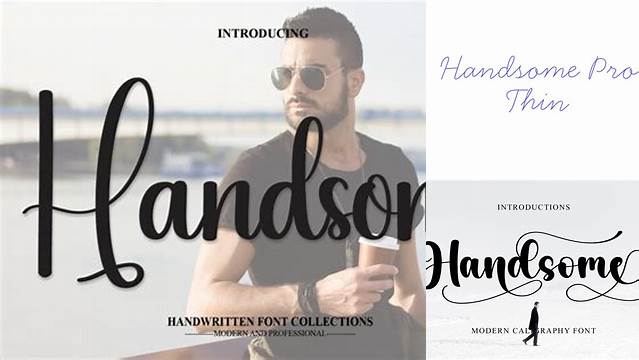
Hey guys! Ever been on the hunt for that perfect, sleek, and handsome thin font to give your designs a touch of elegance? Well, you've landed in the right spot! In this article, we're diving deep into the world of handsome thin fonts, exploring where to find them for free, how to use them, and why they're so darn appealing. Get ready to revamp your typography game!
1. The Allure of Handsome Thin Fonts
Handsome thin fonts, with their delicate lines and minimalist appeal, have a unique charm that can elevate any design project. Their slender strokes evoke a sense of sophistication and modernity, making them perfect for a wide range of applications. Whether you're working on a sleek website, an elegant invitation, or a minimalist logo, a well-chosen handsome thin font can add that perfect touch of refinement. The beauty of these fonts lies in their simplicity; they manage to be both eye-catching and understated, drawing attention without overwhelming the viewer. They’re like that effortlessly stylish friend who always looks put-together without seeming like they tried too hard! Using handsome thin fonts can truly set your work apart by lending it an air of high-end quality and visual appeal that thicker fonts sometimes struggle to achieve. So, why settle for ordinary when you can embrace the elegance of handsome thin fonts?
6. Using Thin Fonts in Graphic Design
When it comes to graphic design, handsome thin fonts can be a game-changer. Their delicate nature makes them perfect for adding a touch of sophistication and elegance to your projects. They work particularly well in logos, where a minimalist approach can convey a sense of modernity and refinement. In branding materials, handsome thin fonts can create a cohesive and upscale look. They’re also fantastic for headlines and titles, especially when paired with a bolder, more substantial font for body text. This contrast can create visual interest and hierarchy, guiding the reader's eye through the design. However, be cautious when using handsome thin fonts in smaller sizes or for large blocks of text, as their thin strokes can become difficult to read. Always consider the readability and accessibility of your design. Experiment with different weights and sizes to find the perfect balance. When used correctly, handsome thin fonts can transform your designs from ordinary to extraordinary.
7. Pairing Thin Fonts with Other Fonts
One of the secrets to using handsome thin fonts effectively is knowing how to pair them with other fonts. The right combination can elevate your design, while the wrong one can make it look disjointed. A classic approach is to pair a handsome thin font with a bolder, more robust font. For example, you could use a thin sans-serif font for headlines and a thicker serif font for body text. This contrast creates visual interest and helps to establish a clear hierarchy. Another popular pairing is combining a handsome thin font with a script or handwritten font. This can add a touch of personality and warmth to your design, perfect for invitations or branding materials. When choosing fonts to pair, consider their overall style and mood. Do they complement each other, or do they clash? Don't be afraid to experiment and try different combinations until you find the perfect match. Online tools like FontPair can also be helpful in suggesting harmonious font pairings. With a little practice, you'll become a pro at creating stunning typographic compositions.
8. Ensuring Readability with Thin Fonts
While handsome thin fonts are undeniably stylish, readability should always be a top priority. Their delicate strokes can sometimes be difficult to read, especially in smaller sizes or against busy backgrounds. To ensure your message is clear, consider increasing the font size slightly. A larger font size will make the thin lines more visible and easier to distinguish. Pay attention to the contrast between the font and the background. A light font on a light background, or a dark font on a dark background, can be challenging to read. Opt for high contrast combinations, such as a dark font on a white background, or vice versa. Adjust the letter spacing and line height to improve legibility. Slightly increasing the letter spacing can prevent the characters from crowding together, while increasing the line height can add more space between lines of text. Always test your design on different devices and screen sizes to ensure it remains readable. By taking these steps, you can harness the beauty of handsome thin fonts without sacrificing clarity.
9. Using Thin Fonts for Logos
Handsome thin fonts are a fantastic choice for creating sleek and modern logos. Their minimalist aesthetic can convey a sense of sophistication and elegance, perfect for brands that want to project a refined image. When using handsome thin fonts in logo design, simplicity is key. Avoid adding too many decorative elements or intricate details, as this can clutter the design and detract from the font's inherent elegance. Consider the overall message and target audience of the brand. A handsome thin font might be ideal for a high-end fashion brand or a minimalist tech startup, but it might not be the best fit for a playful children's brand. Pay attention to the kerning and letter spacing to ensure the logo looks balanced and visually appealing. Experiment with different weights and variations of the font to find the perfect balance. And don't be afraid to get creative! You can use handsome thin fonts in combination with other design elements, such as icons or graphics, to create a unique and memorable logo.
10. Thin Fonts for Web Design
In the world of web design, handsome thin fonts can add a touch of elegance and modernity to your site. They're particularly well-suited for headlines, navigation menus, and other prominent elements. When using handsome thin fonts on the web, it's crucial to consider readability across different devices and screen sizes. Test your font choices on various browsers and operating systems to ensure they render correctly. Use CSS to adjust the font size, letter spacing, and line height to optimize readability. Consider using web fonts, which are specifically designed for online use. Services like Google Fonts and Adobe Fonts offer a wide selection of handsome thin fonts that are optimized for web performance. Be mindful of the website's loading speed. Using too many web fonts or fonts that are not properly optimized can slow down your site, which can negatively impact user experience. Choose your fonts carefully and optimize them for performance to create a website that looks great and loads quickly.
11. The Psychology Behind Thin Fonts
Did you know that fonts can evoke specific emotions and perceptions? Handsome thin fonts often convey a sense of sophistication, elegance, and modernity. They can make a design feel more upscale and refined. This makes them a popular choice for brands that want to project a high-end image. Handsome thin fonts can also create a feeling of lightness and airiness. Their delicate strokes can make a design feel less heavy and more approachable. However, they can also be perceived as fragile or delicate, so it's important to use them in the right context. When choosing a font for your project, consider the message you want to convey and the emotions you want to evoke. A handsome thin font can be a powerful tool for shaping perceptions and creating a lasting impression.
12. Common Mistakes to Avoid with Thin Fonts
Using handsome thin fonts can be tricky, and it's easy to make mistakes that can detract from your design. One common mistake is using them in too small a size. Thin fonts can become difficult to read at smaller sizes, especially on screens. Always test your font choices at different sizes to ensure they remain legible. Another mistake is using them on busy or cluttered backgrounds. The thin lines can get lost in the noise, making the text difficult to read. Opt for clean, simple backgrounds that provide good contrast. Overusing handsome thin fonts is another pitfall. Using them for every element of your design can make it feel monotonous and overwhelming. Use them sparingly, and pair them with other fonts to create visual interest. Avoid using them for long blocks of text. Thin fonts are best suited for headlines, titles, and short phrases. By avoiding these common mistakes, you can use handsome thin fonts effectively and create stunning designs.
13. Exploring Different Styles of Thin Fonts
Handsome thin fonts come in a variety of styles, each with its unique character and appeal. Some are sleek and modern, with sharp angles and clean lines. Others are more traditional, with subtle serifs and elegant curves. Sans-serif handsome thin fonts tend to have a minimalist and contemporary feel, while serif handsome thin fonts can evoke a sense of classic elegance. Some handsome thin fonts have a handwritten or script-like appearance, adding a touch of personality and warmth to your designs. Experiment with different styles to find the perfect fit for your project. Consider the overall tone and message you want to convey. A modern, sans-serif handsome thin font might be ideal for a tech startup, while a traditional, serif handsome thin font could be a great choice for a luxury brand. The possibilities are endless!
14. The Future of Thin Fonts in Design
As design trends continue to evolve, handsome thin fonts are likely to remain a popular choice for their sleek and modern aesthetic. With the rise of minimalist design and the increasing focus on user experience, handsome thin fonts are well-positioned to play a prominent role in shaping the future of design. We can expect to see designers pushing the boundaries of typography, experimenting with new and innovative ways to use handsome thin fonts. Variable fonts, which allow for greater flexibility and customization, are likely to become more prevalent. This will enable designers to fine-tune the weight, width, and other characteristics of handsome thin fonts to create unique and tailored designs. As technology advances, we can also expect to see new tools and techniques that make it easier to use handsome thin fonts effectively across different platforms and devices.
15. Maintaining Consistency with Thin Fonts
Consistency is key when using handsome thin fonts in your designs. Inconsistent use of fonts can make your designs look unprofessional and disjointed. Choose a limited number of fonts (ideally two or three) and stick to them throughout your project. Establish clear guidelines for how each font should be used. For example, you might use a handsome thin font for headlines and a bolder font for body text. Be consistent with font sizes, letter spacing, and line height. Use styles and templates to ensure consistency across different pages or documents. Create a style guide that outlines your font choices and usage guidelines. Share this style guide with your team to ensure everyone is on the same page. By maintaining consistency, you can create designs that look polished, professional, and cohesive.
16. Optimizing Thin Fonts for Mobile Devices
With the increasing popularity of mobile devices, it's crucial to optimize handsome thin fonts for smaller screens. Thin fonts can be difficult to read on mobile devices, especially on high-resolution displays. Increase the font size to make the text more legible. Use a larger font size for headlines and subheadings, and a slightly larger font size for body text. Adjust the letter spacing and line height to improve readability. Add more space between letters and lines to prevent the text from crowding together. Choose fonts that are specifically designed for mobile devices. These fonts are optimized for readability on smaller screens. Test your designs on different mobile devices to ensure the fonts render correctly. Use responsive design techniques to adjust the font sizes and layout based on the screen size. By optimizing handsome thin fonts for mobile devices, you can ensure your designs look great and are easy to read on any device.
17. The Impact of Thin Fonts on Branding
The fonts you choose can have a significant impact on your brand identity. Handsome thin fonts can convey a sense of sophistication, elegance, and modernity, making them a popular choice for brands that want to project a refined image. A well-chosen handsome thin font can help to establish a strong brand identity and differentiate your brand from the competition. Use handsome thin fonts consistently across all your branding materials, including your logo, website, marketing materials, and social media profiles. This will help to create a cohesive and recognizable brand identity. Consider the target audience and overall message of your brand when choosing a font. A handsome thin font might be ideal for a luxury brand targeting affluent customers, but it might not be the best fit for a playful brand targeting children. By carefully considering the impact of handsome thin fonts on your branding, you can create a brand identity that resonates with your target audience.
18. Thin Fonts in Print Design
Handsome thin fonts can be a great choice for print design, but it's important to consider the limitations of print media. Thin fonts can sometimes appear too light or faded when printed, especially on certain types of paper. Choose a font that is specifically designed for print. These fonts are optimized for readability and clarity in printed materials. Increase the font weight slightly to make the text more visible. A slightly heavier weight can help to compensate for the loss of detail in print. Use a high-quality printer and paper. The quality of the printer and paper can have a significant impact on the appearance of your fonts. Test your designs before printing a large quantity. Print a sample page to ensure the fonts look the way you expect them to. By taking these precautions, you can use handsome thin fonts effectively in print design.
19. Combining Thin Fonts with Color
Color can play a crucial role in how handsome thin fonts are perceived. The right color combination can enhance the elegance and sophistication of thin fonts, while the wrong combination can make them look washed out or difficult to read. Use high-contrast color combinations to ensure readability. A dark font on a light background, or vice versa, is generally the most effective. Experiment with different color palettes to find the perfect match for your design. Consider the overall tone and message you want to convey. Warm colors, such as red and orange, can create a feeling of energy and excitement, while cool colors, such as blue and green, can create a feeling of calm and tranquility. Use color to highlight important elements of your design. A pop of color can draw attention to headlines or call-to-action buttons. By combining handsome thin fonts with color effectively, you can create designs that are visually appealing and impactful.
20. Creating Hierarchy with Thin Fonts
Creating a clear visual hierarchy is essential for effective design. Handsome thin fonts can be used to create hierarchy by varying the font size, weight, and style. Use a larger font size for headlines and subheadings to make them stand out. A larger font size will draw the reader's eye and create a clear focal point. Use a bolder weight for important words or phrases. A heavier weight will emphasize key information and make it more memorable. Use different font styles to differentiate between different types of content. For example, you might use a handsome thin font for headlines and a different font for body text. Use whitespace to create visual separation between elements. Whitespace can help to break up the page and make it easier to read. By creating a clear visual hierarchy, you can guide the reader's eye through your design and make it easier to understand.
21. Exploring Open Source Thin Fonts
Open source fonts are a great resource for designers. They are typically free to use for both personal and commercial projects, and they often come with liberal licensing terms that allow you to modify and redistribute them. Many high-quality handsome thin fonts are available under open source licenses. Google Fonts is a great place to find open source fonts. Their library includes a wide variety of handsome thin fonts that are free to use on the web. Font Squirrel is another excellent resource for open source fonts. They curate fonts that are 100% free for commercial use. When using open source fonts, be sure to check the license terms to ensure they meet your needs. Some licenses may require you to attribute the font designer or include a copy of the license with your project. By exploring open source handsome thin fonts, you can find great fonts without breaking the bank.
22. The Importance of Kerning with Thin Fonts
Kerning, the adjustment of space between individual letters, is especially important when working with handsome thin fonts. Because the strokes are so delicate, even slight variations in spacing can become noticeable and affect readability. Poor kerning can make a font look uneven and unprofessional. Pay close attention to the kerning of handsome thin fonts, especially in headlines and logos. Use kerning tools in your design software to fine-tune the spacing between letters. Look for areas where the spacing appears too tight or too loose. Adjust the spacing until the font looks balanced and visually appealing. Some fonts have built-in kerning tables that automatically adjust the spacing between letters. However, it's still important to review the kerning manually to ensure it looks correct. By paying attention to kerning, you can improve the readability and overall appearance of handsome thin fonts.
23. Using Thin Fonts in Motion Graphics
Handsome thin fonts can add a touch of elegance and sophistication to motion graphics. They're particularly well-suited for titles, credits, and other text-based elements. When using handsome thin fonts in motion graphics, it's important to consider how the font will animate. Thin fonts can sometimes appear jittery or unstable when animated, especially if the animation is too fast. Use smooth, subtle animations to avoid this problem. Avoid using handsome thin fonts for long blocks of text in motion graphics. Thin fonts are best suited for short, concise text elements. Choose a font that is easy to read on screen. Test your motion graphics on different devices to ensure the fonts render correctly. By using handsome thin fonts effectively in motion graphics, you can create visually stunning and engaging animations.
24. Creating a Font Library for Thin Fonts
Building a well-organized font library is essential for any designer. A font library allows you to easily access and manage your favorite fonts, making it easier to find the perfect font for your project. Create a dedicated folder on your computer for your fonts. Organize your fonts into subfolders based on style, weight, or other criteria. Use a font management tool to preview and activate your fonts. Font management tools allow you to easily browse your font library, preview fonts, and activate or deactivate fonts as needed. Tag your fonts with keywords to make them easier to find. For example, you might tag a handsome thin font with keywords like